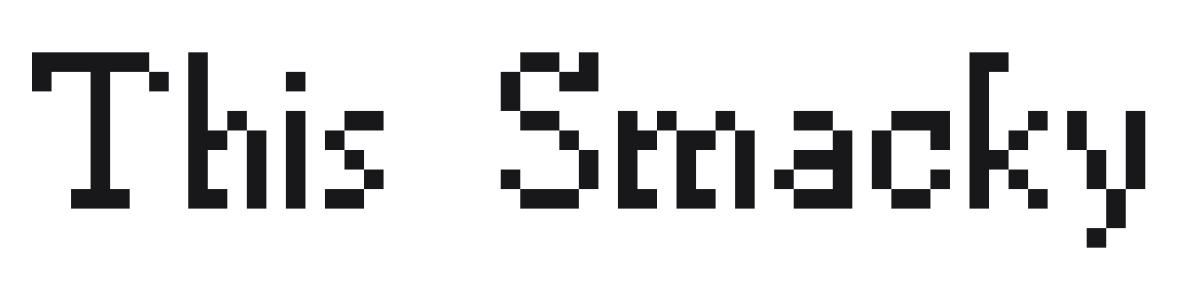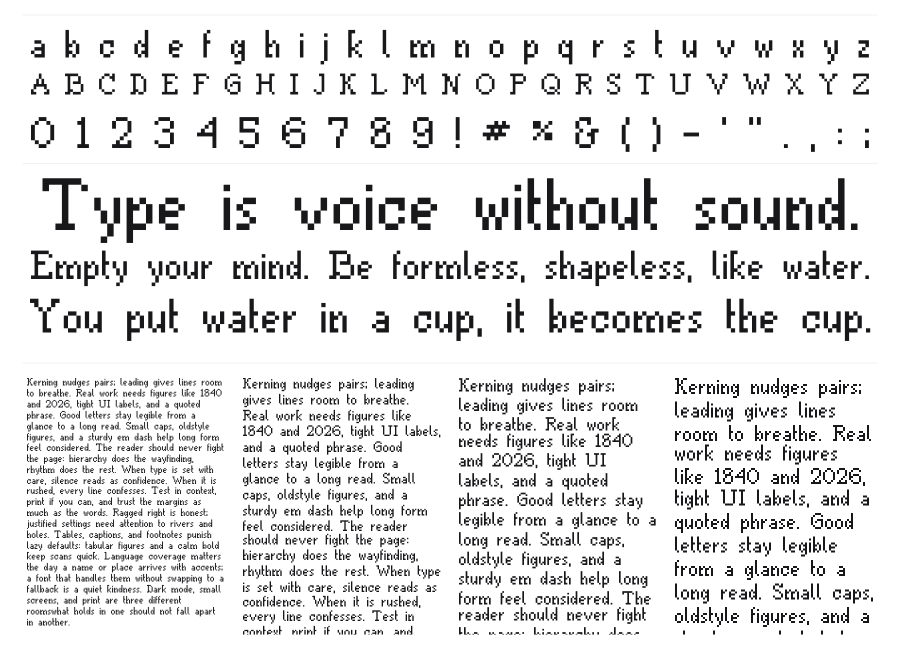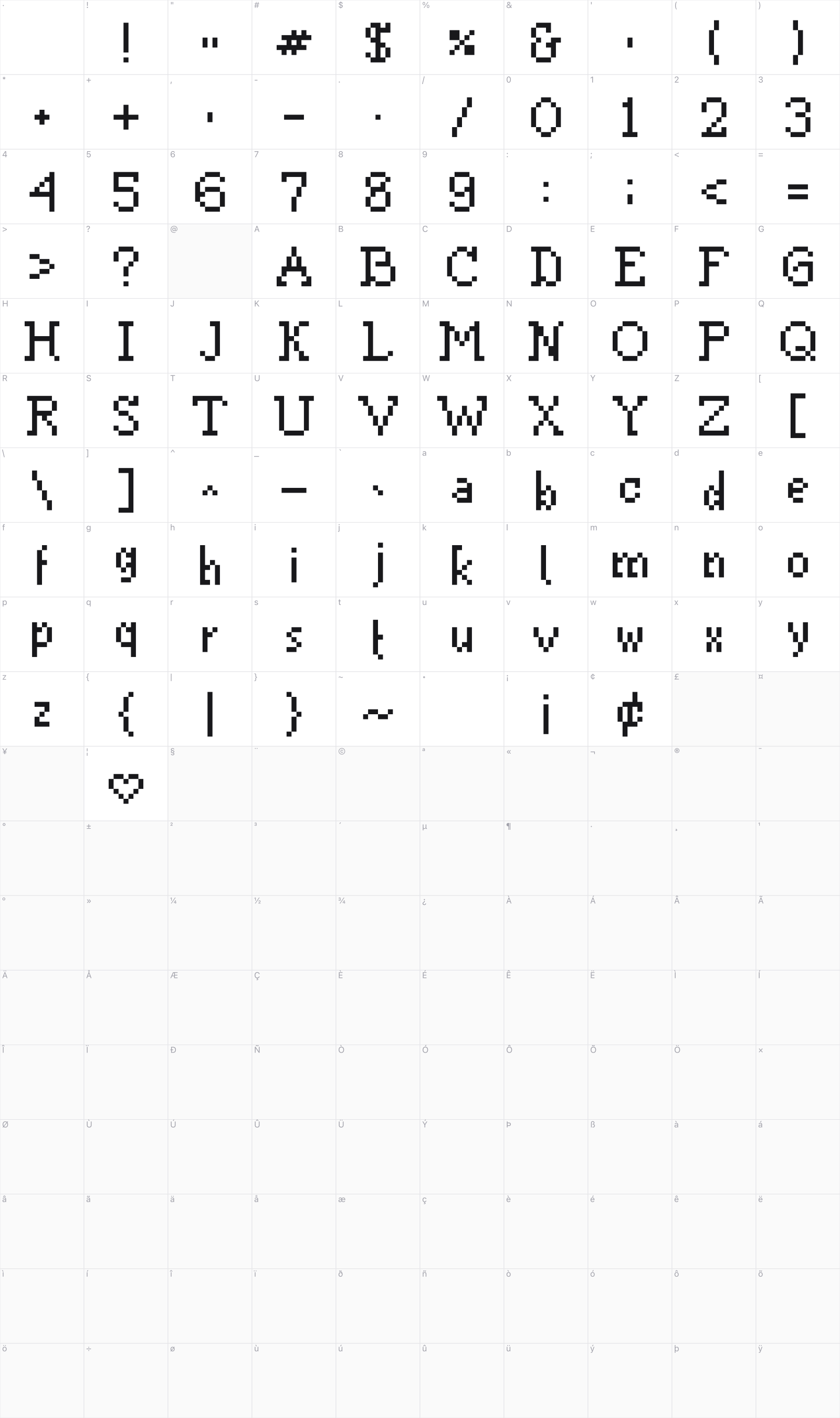
This Smacky
by Hazel Abbiati
This Smacky is a chunky bitmap font built from visible pixel squares, channeling the look of early video game and home computer screens. Every stroke is rendered in coarse block form, making diagonals and curves step visibly across the grid. It carries a genuine lo-fi personality that works well anywhere retro-digital aesthetics are the point.